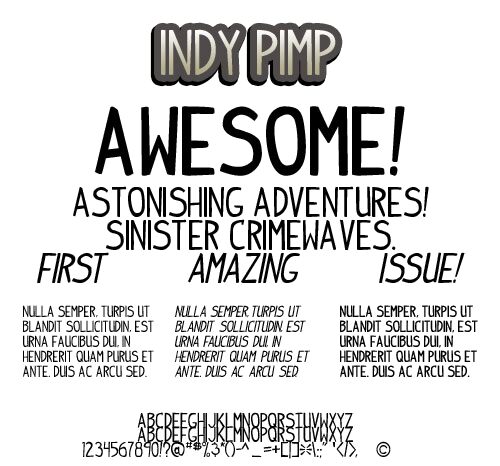
Indy Pimp Italic by Andeh Pinkard of Teabeer Studios is a free decorative display font with a lanky, sharply slanted profile. Its narrow letters stretch upward in uneven strokes, mixing broad swells with fine joins. Angular cuts and loose curves give the alphabet a wiry, restless silhouette.
The lettering shares the exaggerated motion of fashion sketches and underground-comic drawing, making it useful for music posters and apparel graphics. It also suits nightlife branding and independent magazine covers. Beside angular portraits or gestural line art, the tall forms can become part of the illustration rather than a neutral caption.